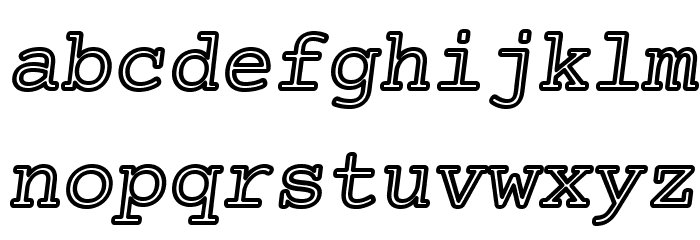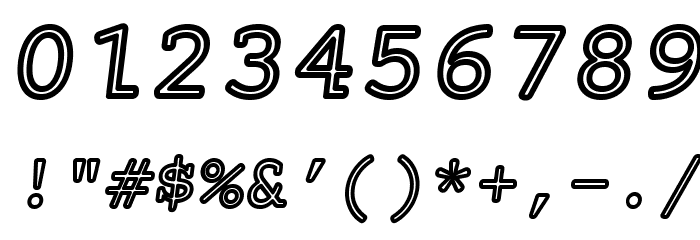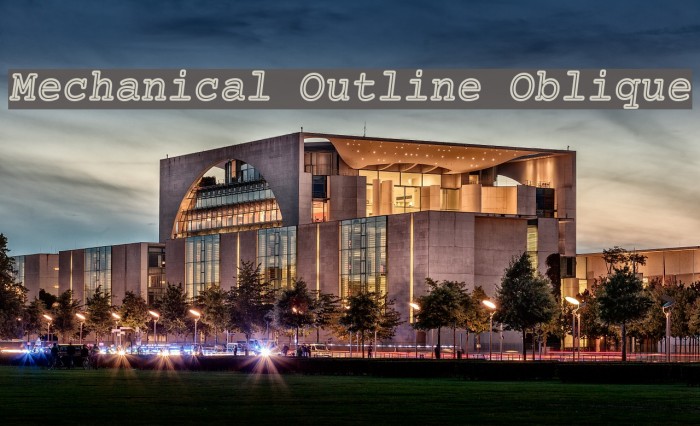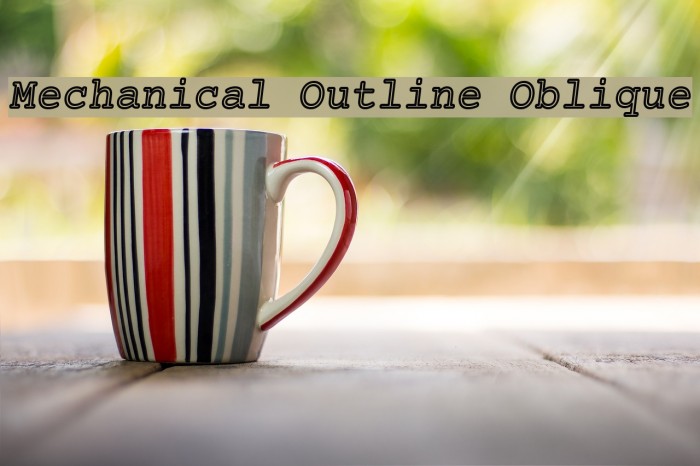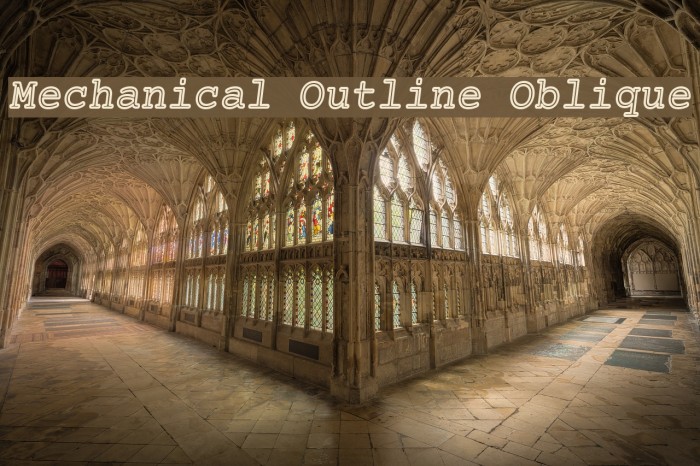
Mechanical Outline Oblique Font
This font features a distinct mechanical and industrial aesthetic, characterized by its outlined and oblique style. The uppercase and lowercase letters maintain a consistent outline that gives a sense of depth and dimension. The oblique slant adds a dynamic and forward-moving feel, making it suitable for modern and futuristic designs. The numerals and special characters follow the same outlined and slanted style, ensuring uniformity across all glyphs. The font's clean lines and structured form make it versatile for various applications, while the outline adds a unique touch that sets it apart from standard fonts.
A mechanical, outlined, and oblique font with a modern industrial feel.
- Proposed Projects: Ideal for branding, logos, posters, and any project requiring a modern, industrial look.